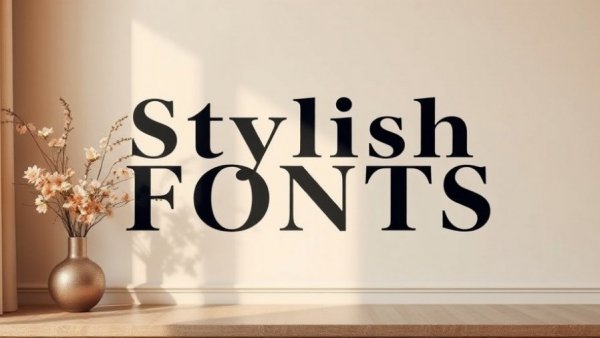
Discover the Stylish Fonts Shaping Graphic Design in 2026
Modern graphic design featuring stylish fonts with vase and flowers.
The Evolving Landscape of Graphic Design Fonts for 2026
As the world of graphic design continues to evolve, so do the fonts that define its landscape. In 2026, designers are increasingly leaning towards a blend of timeless classics and fresh, innovative typographic styles. This year, it's all about making an impact with typography that not only conveys a message but also evokes emotions. From the intricacies of brand identity development to the nuances of print design, understanding the typography trends can help graphic designers create breathtaking visuals that resonate on multiple levels.
Trending Fonts Transforming Graphic Design
Among the most influential fonts in 2026 are the classics like Helvetica, Garamond, and Futura, alongside contemporary favorites that are gaining traction. Helvetica's enduring popularity is rooted in its versatility; it remains the font of choice for many high-profile brands seeking to convey clarity and professionalism. Garamond, with its classical roots, offers an elegant touch to book publishing and long-form text, while Futura's geometric design infuses modernity across various digital platforms.
Perfectly Imperfect Typography
This year, a noteworthy trend is the embrace of imperfection. Designers are stepping away from overly polished visuals, aiming for a more human touch. This approach fosters connection and authenticity, especially in branding. By incorporating hand-drawn elements, uneven line spacing, and textures that exude warmth, graphic designers are transforming brands to feel more relatable and personal.
The Rise of Maximalism in Typography
In stark contrast to minimalist design principles, the typographic maximalism trend is gaining momentum. Designers are pushing boundaries with bold lettering and dynamic compositions, where typography often takes center stage. Brands like OutSystems and Bose are leading the charge, employing kinetic type that behaves like motion graphics, bringing an element of performance to their typography.
Understanding Typography's Role in Identity
Typography is no longer just about choosing a font; it's about strategically implementing a visual identity that reflects the brand's ethos. In 2026, designers are not only creating systems but are also allowing flexibility within those systems. This decentralized branding approach invites user-generated content, acknowledging the community's role in shaping brand narratives. Twitch and Roblox exemplify how brands are adopting adaptable typography and design frameworks, leaving room for creativity from their audience.
Fonts That Inspire: A Closer Look
To get a sense of which fonts are resonating with designers today, we can reflect on a curated list of favorites:
• Helvetica: Renowned for its clarity and straightforwardness across numerous brands.
• Futura: Embraced for its geometric shapes and contemporary feel, perfect for a range of branding applications.
• Bodoni: Celebrated for its class and elegance, popular in high-end fashion and editorial layouts.
• Avenir: A geometric sans-serif that feels modern and approachable.
• Rockwell: A solid choice for impactful headlines, known for its slab serifs and strong presence.
How to Choose the Right Fonts for Your Projects
When selecting fonts, here are a few tips to keep in mind:
• Consider the brand's personality: Fonts should reflect the brand's ethos and the emotions you want to evoke in your audience.
• Combine fonts thoughtfully: Pairing different typefaces can create a vibrant visual experience, but should be done carefully to maintain harmony.
• Test readability: Ensure your font choices maintain clarity across all platforms, whether in print or digital formats.
Conclusion: Your Next Steps in Graphic Design
As we embrace these typography trends in 2026, remember that the right font can transform your design story. With so many options available today—from local to freelance graphic designers—you have the world of typography at your fingertips. Take this opportunity to explore different styles, incorporate new trends, and create meaningful connections through your designs.